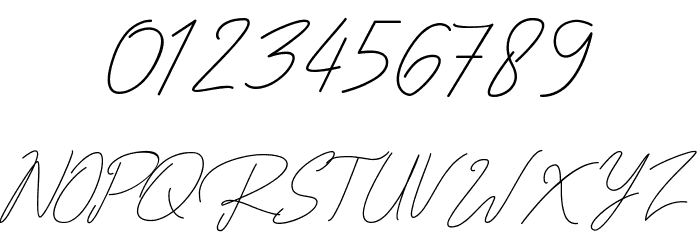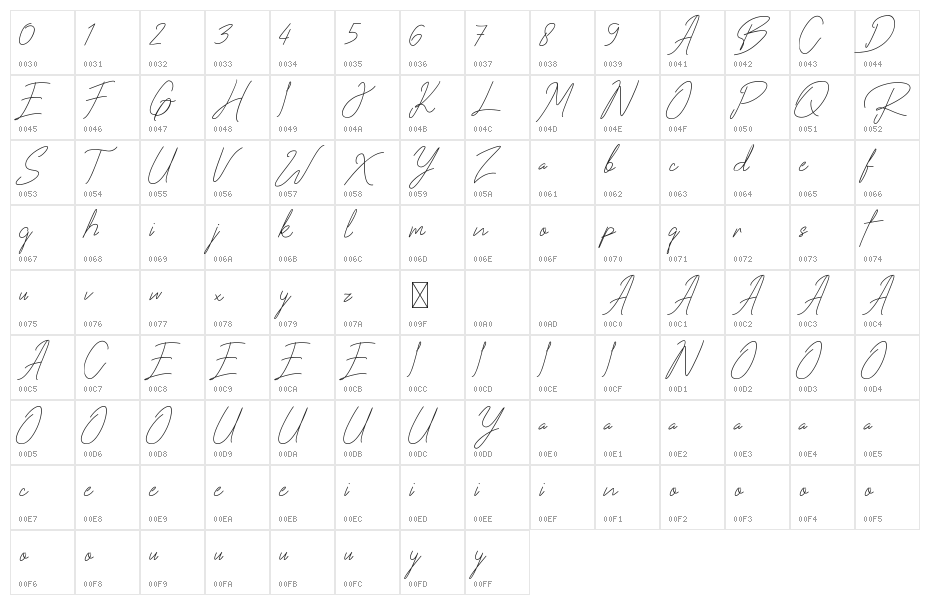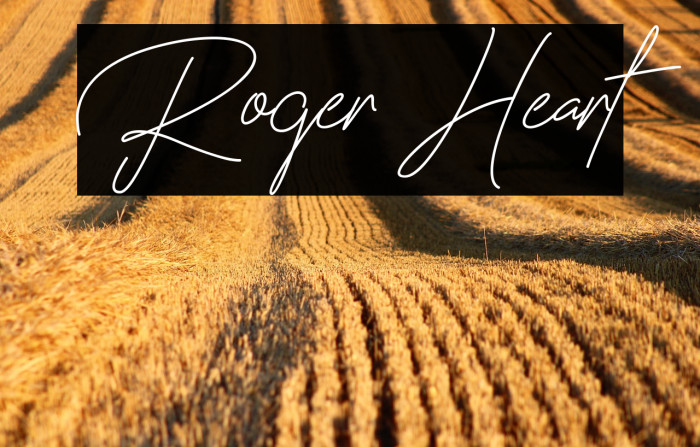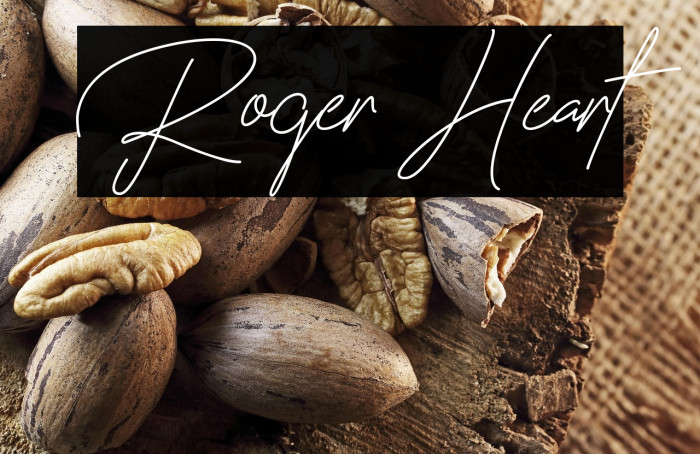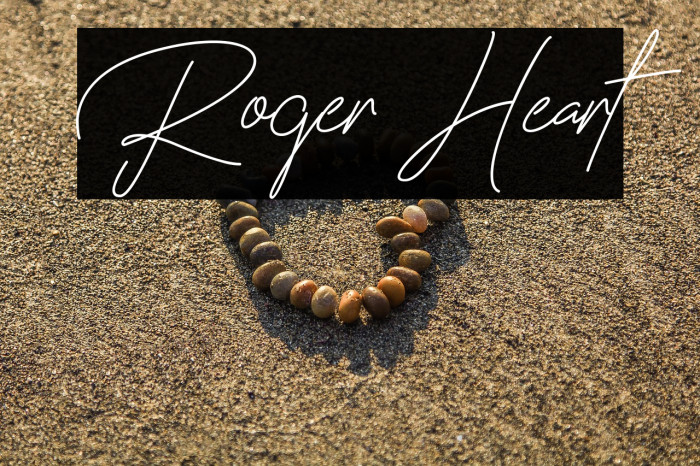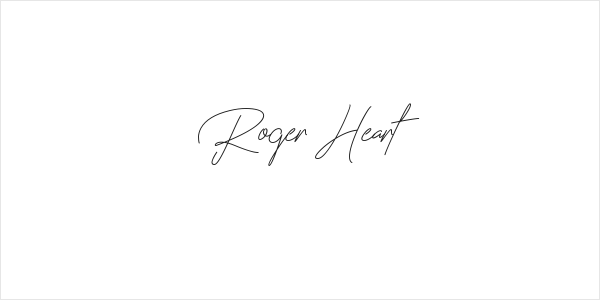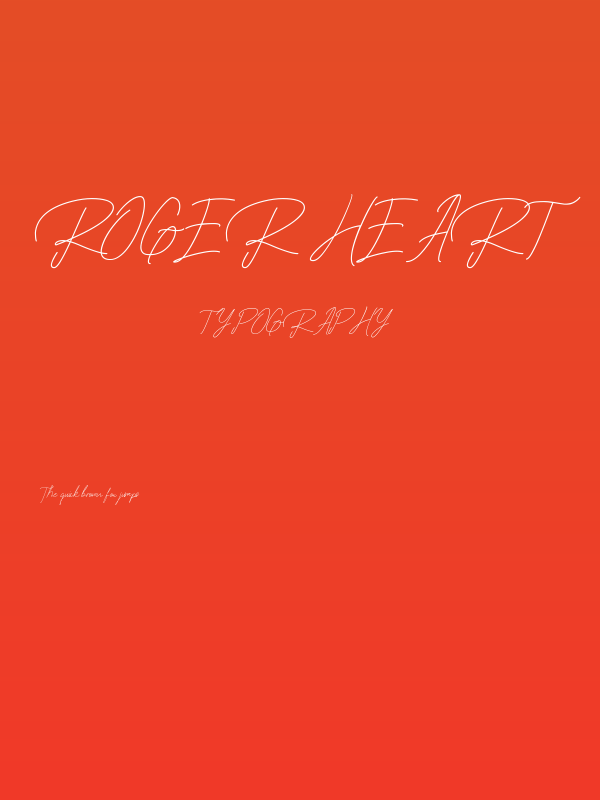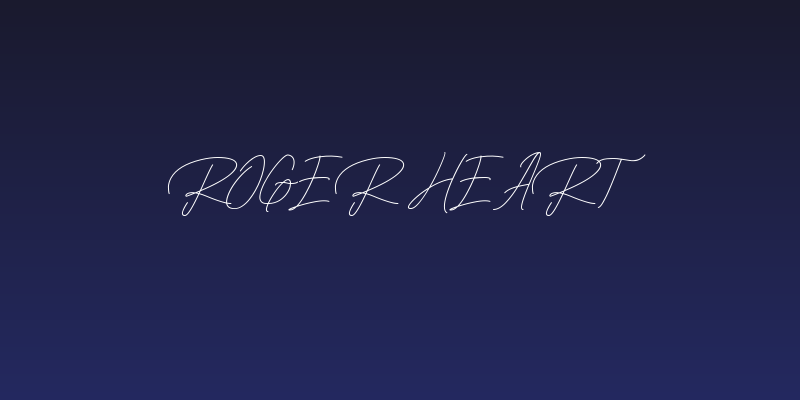
Roger Heart Font
Roger Heart Description
This elegant script font features a flowing, handwritten style with a sense of fluidity and grace. The uppercase letters are tall and slender, with sweeping curves that give them a sophisticated appearance. The lowercase letters maintain a consistent flow, with smooth connections between characters, enhancing the cursive aesthetic. The numerals are designed to match the overall style, with a slight slant and delicate curves. This font exudes a sense of elegance and refinement, making it ideal for formal invitations, branding, and other projects that require a touch of class.
Overall StyleElegant, Handwritten
Use CaseLogos, Invitations, Branding
Proposed ProjectsIdeal for wedding invitations, elegant branding, greeting cards, and upscale packaging.